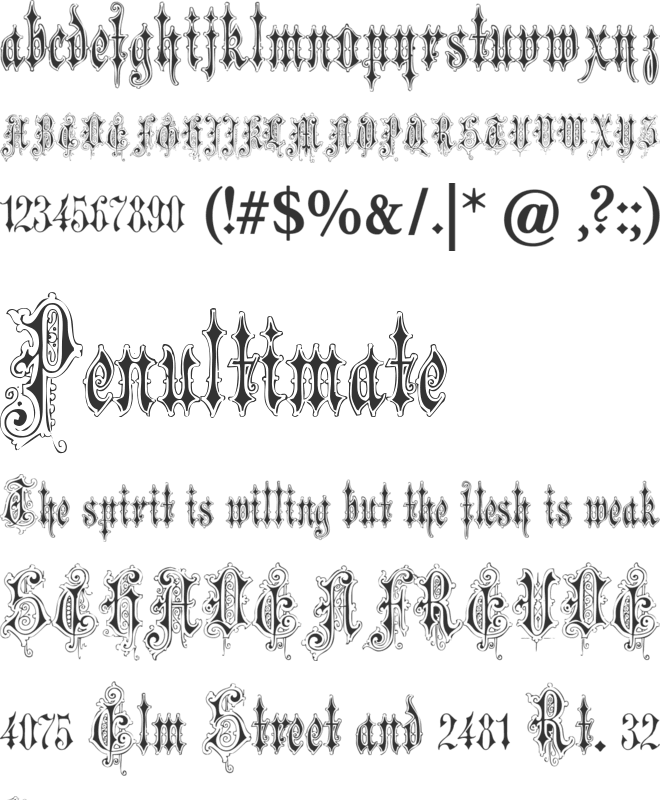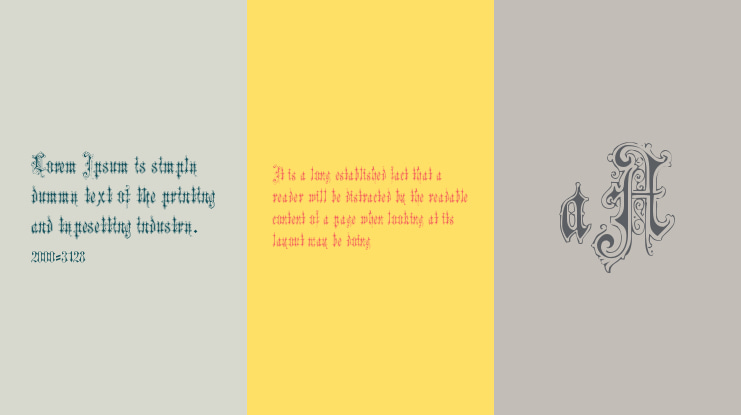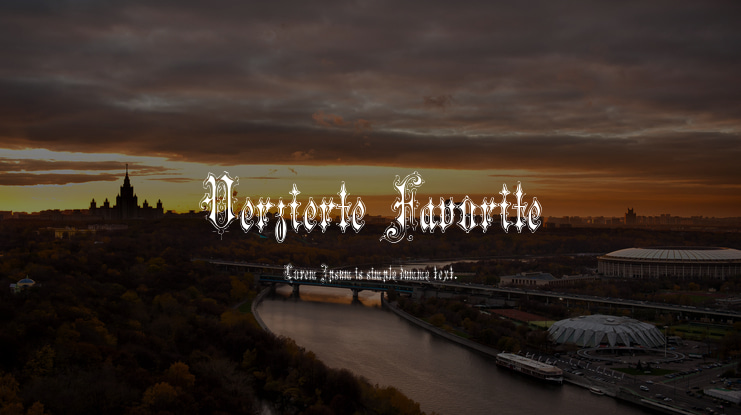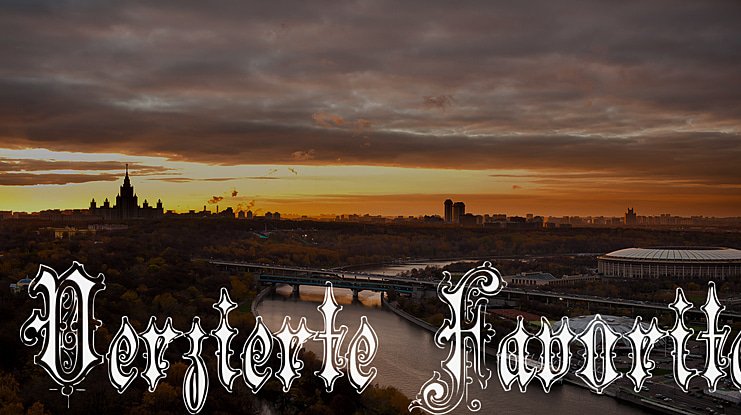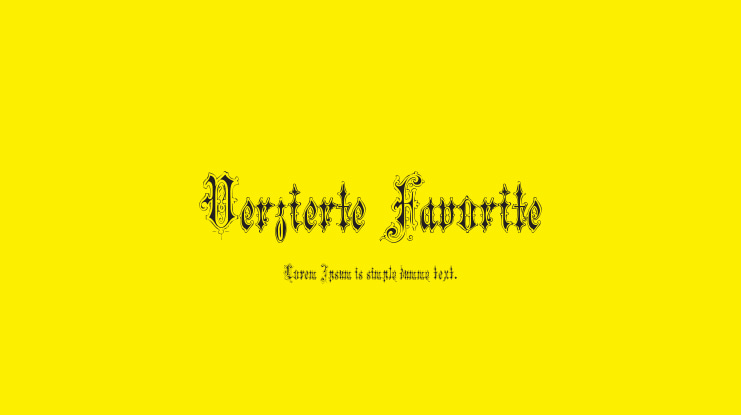
Verzierte Favorite Font
This font is pure imperial style with such an overkill of flourishes, relatively common for that time. Such lettering was used for store signage, book titles and in advertisements. Probably these exaggerated flourishes ultimately led to a radical rethinking, which then led to the constructed fonts in the Bauhaus style. Please donate if you like the font!